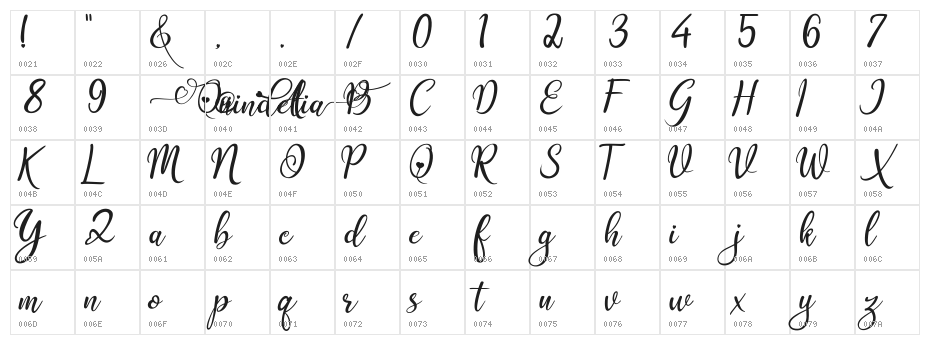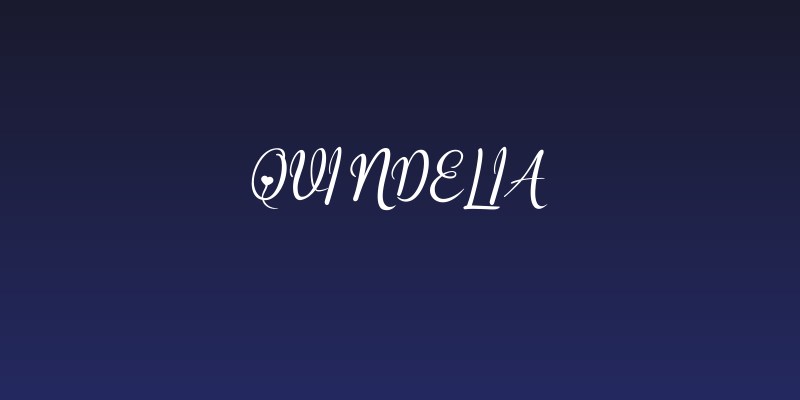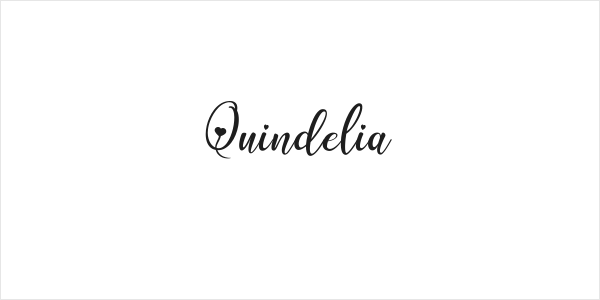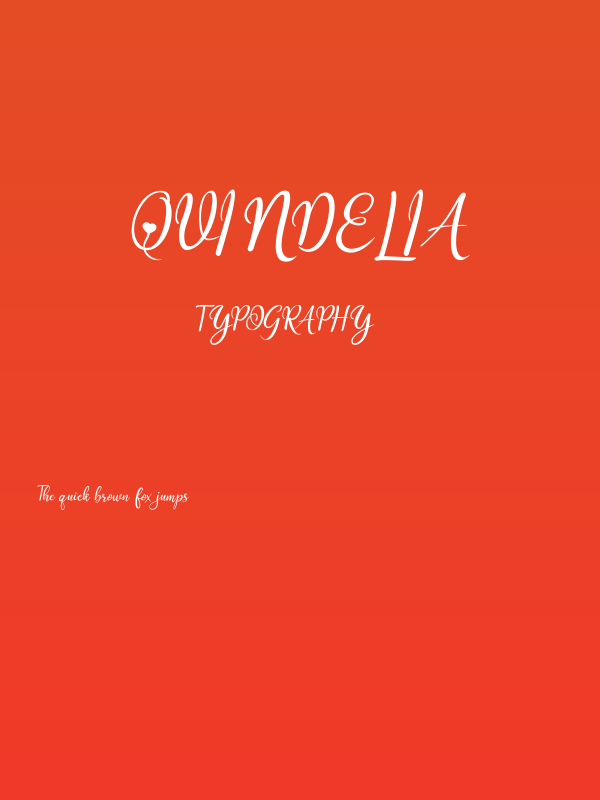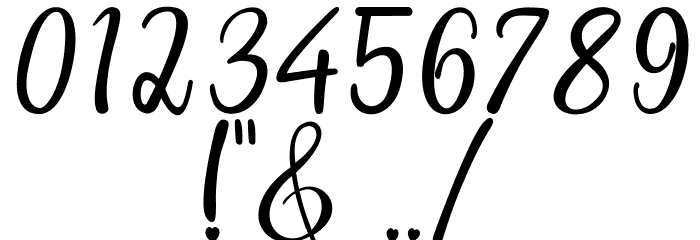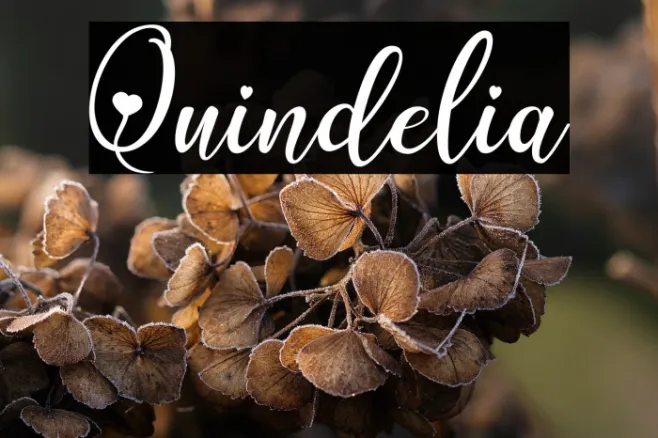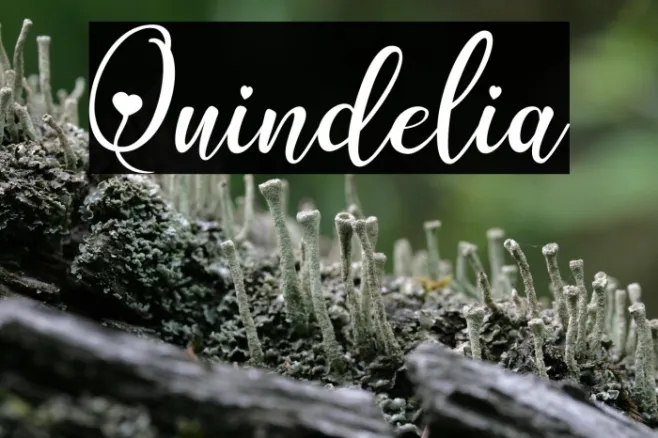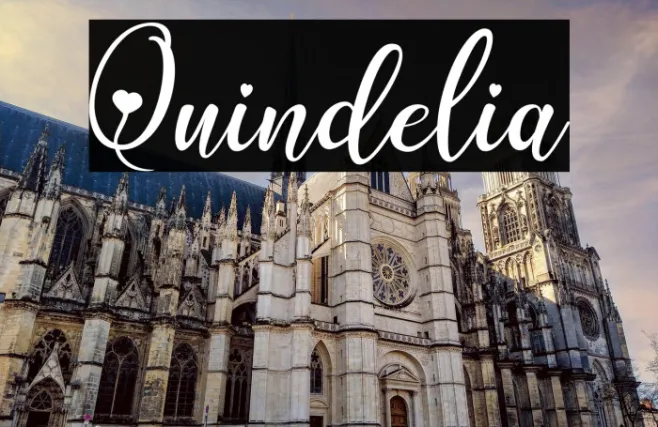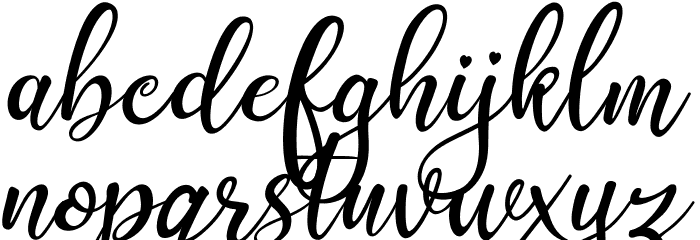
Quindelia Font
Quindelia Description
This font features an elegant and flowing script style, characterized by its cursive and connected letterforms. The uppercase letters are tall and graceful, with sweeping curves and flourishes that add a touch of sophistication. The lowercase letters maintain a consistent flow, with smooth transitions between each character, enhancing readability while preserving the decorative nature of the script. The numerals are styled to match the overall aesthetic, with a slight slant and rounded edges that complement the letters. Special characters are designed with similar attention to detail, ensuring cohesion throughout the font. This typeface exudes a sense of elegance and charm, making it ideal for projects that require a personal and artistic touch.
| Proposed Projects | Ideal for wedding invitations, greeting cards, branding, and logo design where a personal and artistic touch is desired. |